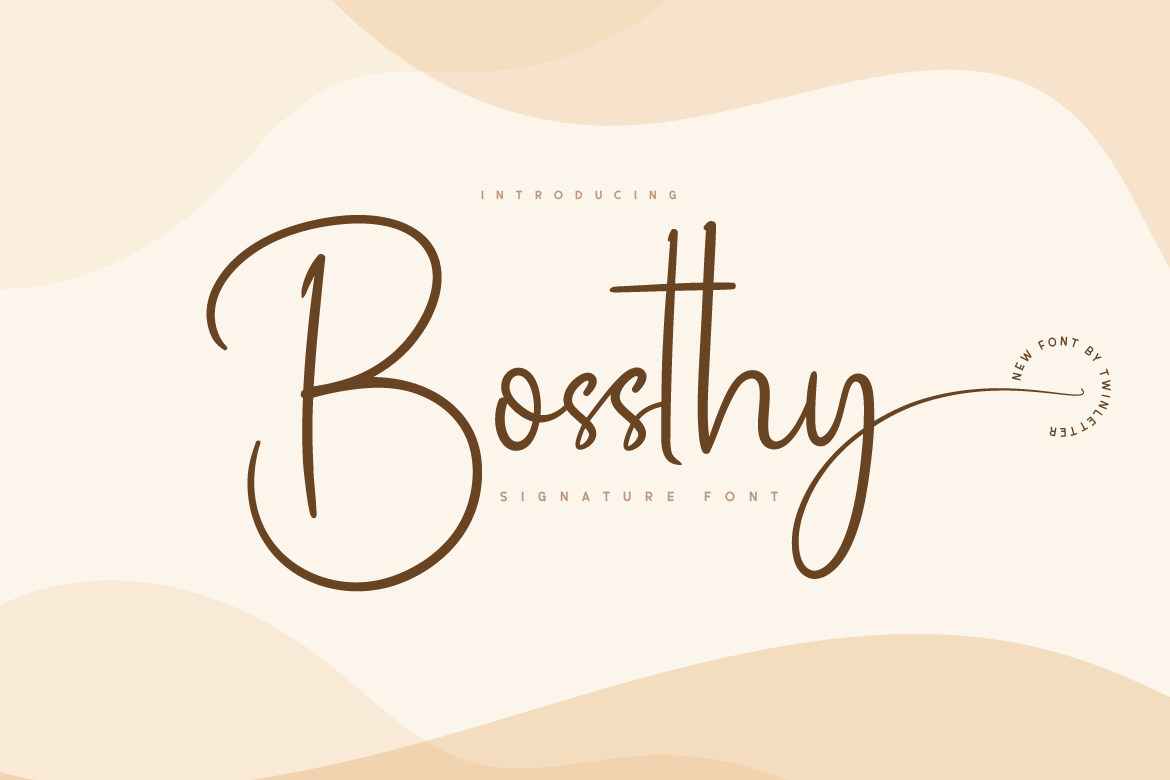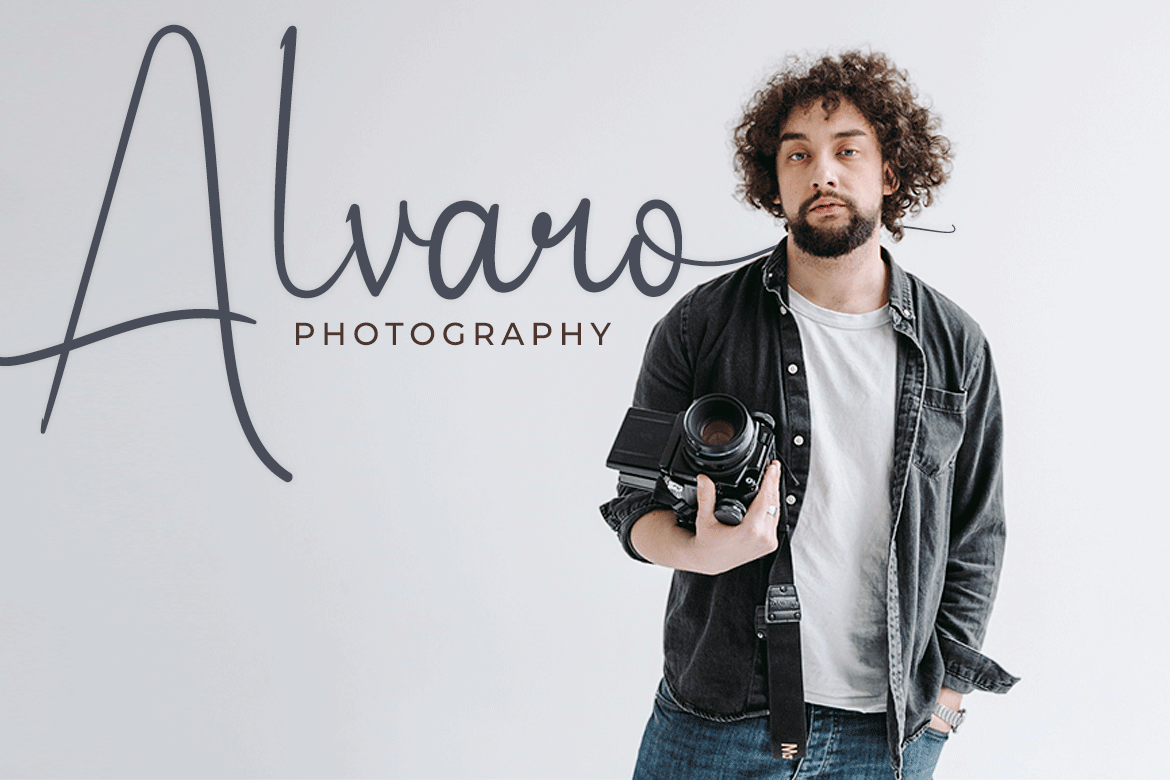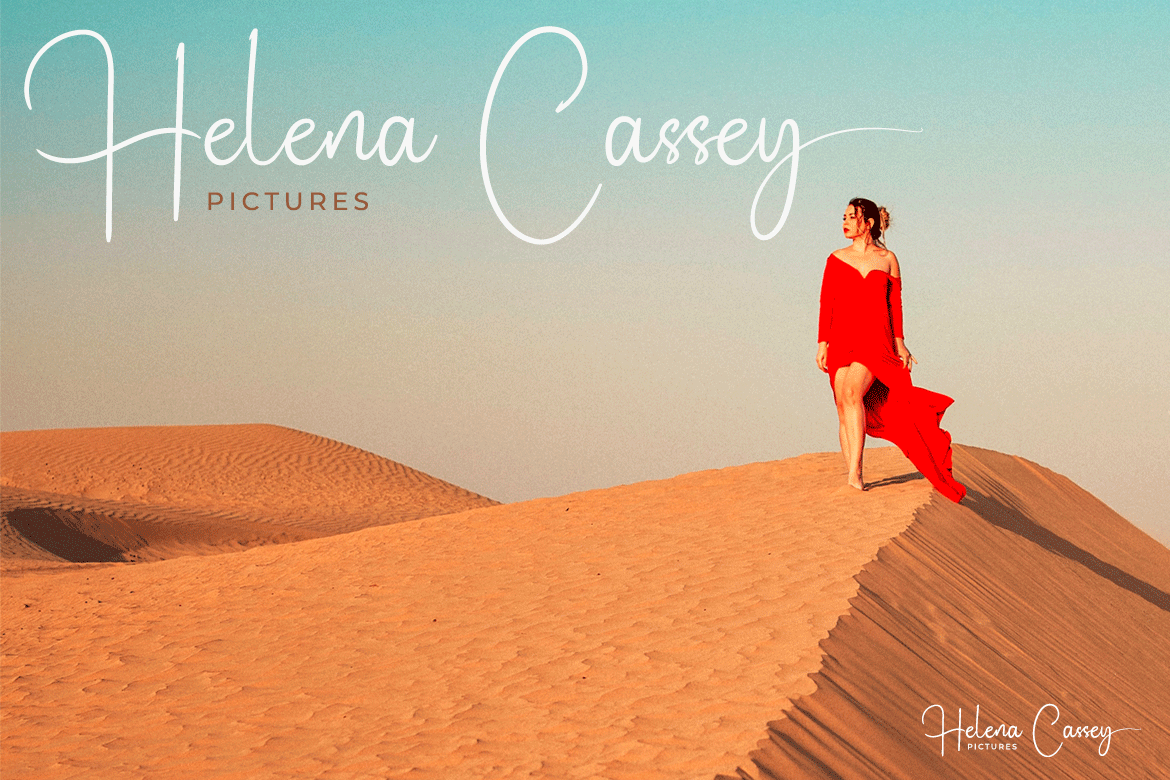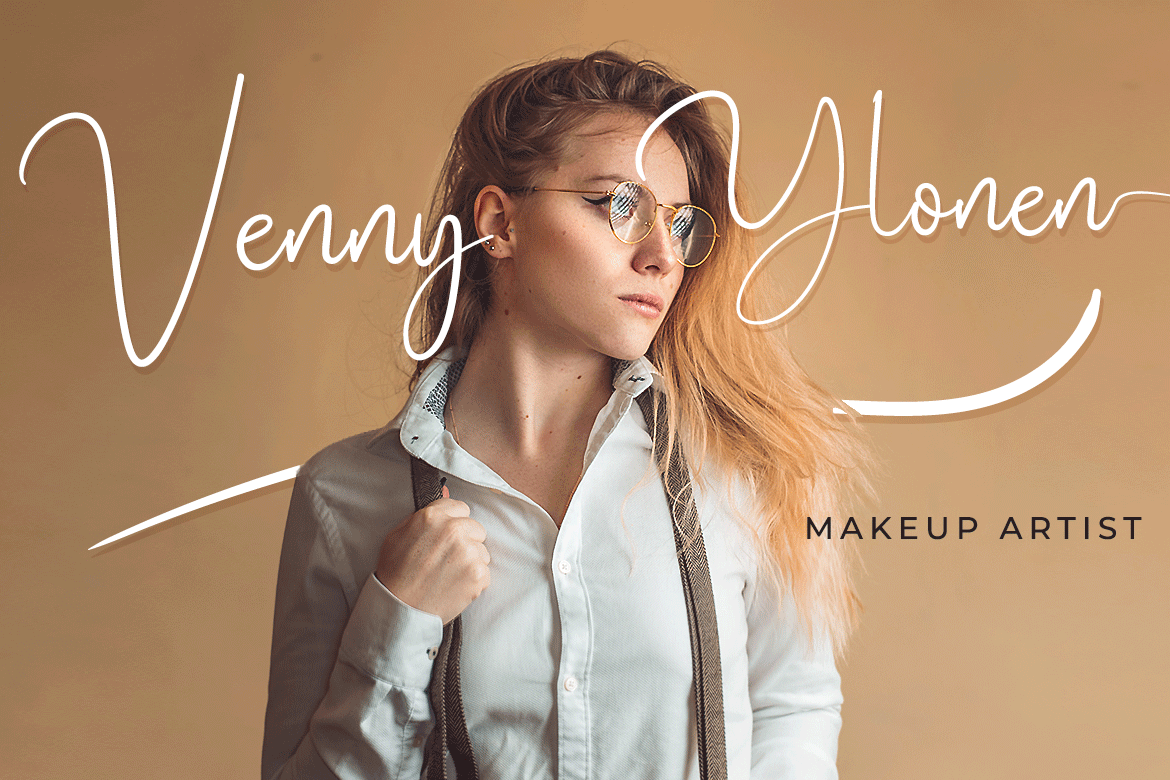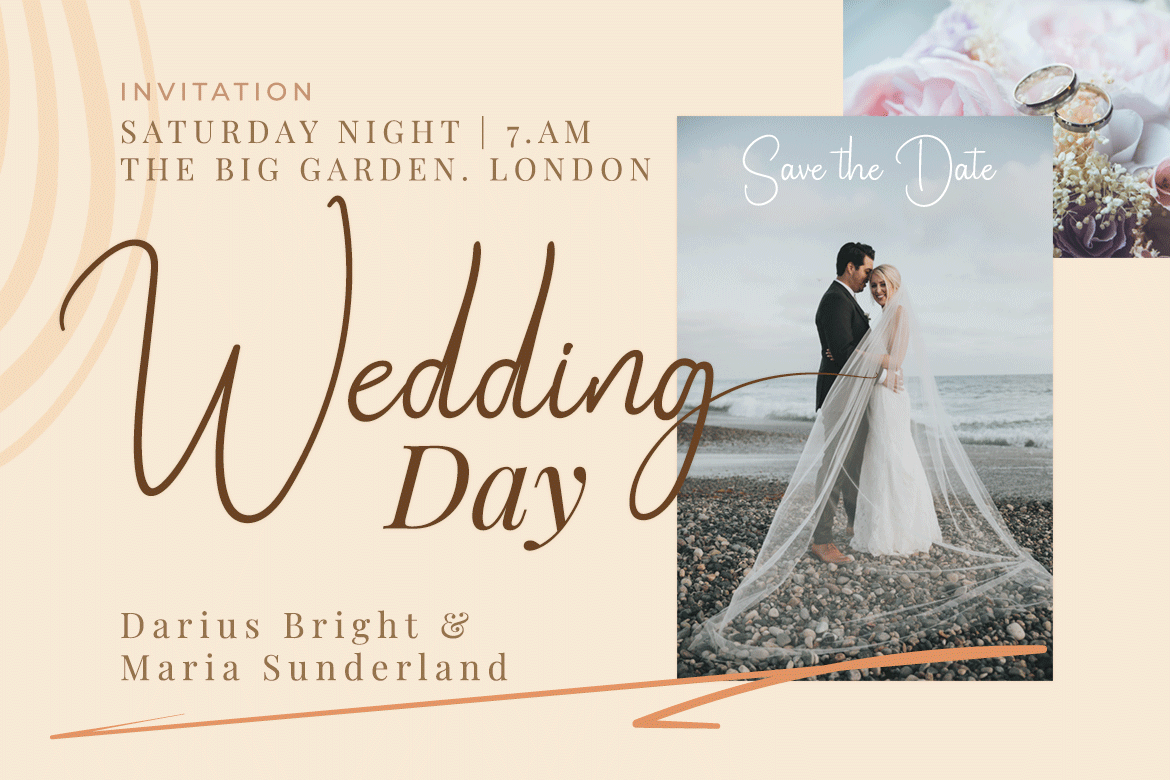
Bossthy Font
Bossthy Script Font
This is a thin lettered and graceful script font. Fall for its delicate style and use it to create gorgeous designs! Bossthy is PUA encoded which means you can access all of the glyphs and swashes with ease!